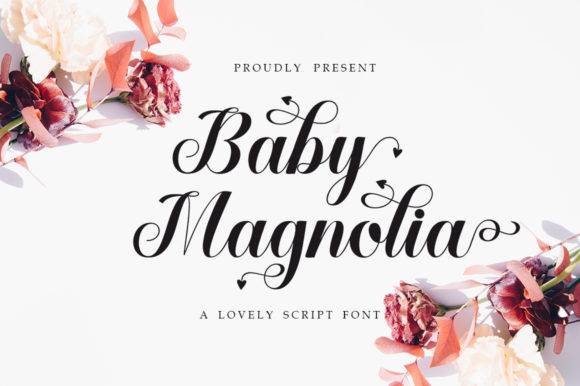
Baby Magnolia Font for Headlines, Posters and Branding Projects
Baby Magnolia is a handcrafted display font that brings a playful elegance to your creative work. With a blend of casual strokes and graceful proportions, it's ideal for standout headlines, lifestyle branding, and print campaigns.
Designed to balance readability and character, Baby Magnolia helps you create eye-catching compositions with a friendly tone and professional polish.
- Posters and advertising banners
- Branding kits and visual identity packs
- Social media content and stories
- Magazine headers and editorial features
- Event signage and custom invitations
- Elegant and playful character styling
- Versatile for both print and web projects
- Ideal for youth-oriented and lifestyle brands
- Easy to read and impactful at display sizes
- Supports design consistency across platforms
Q: What kind of font is Baby Magnolia?
A: Baby Magnolia is a display font designed for high-impact applications like headlines, branding, and promotional graphics.
Q: Will this font work well for logo design?
A: Yes. Its unique style makes it great for logos, especially in fashion, lifestyle, and boutique branding.
Q: Is this a good choice for event flyers?
A: Absolutely. Baby Magnolia offers both elegance and clarity, making it ideal for promotional and event materials.